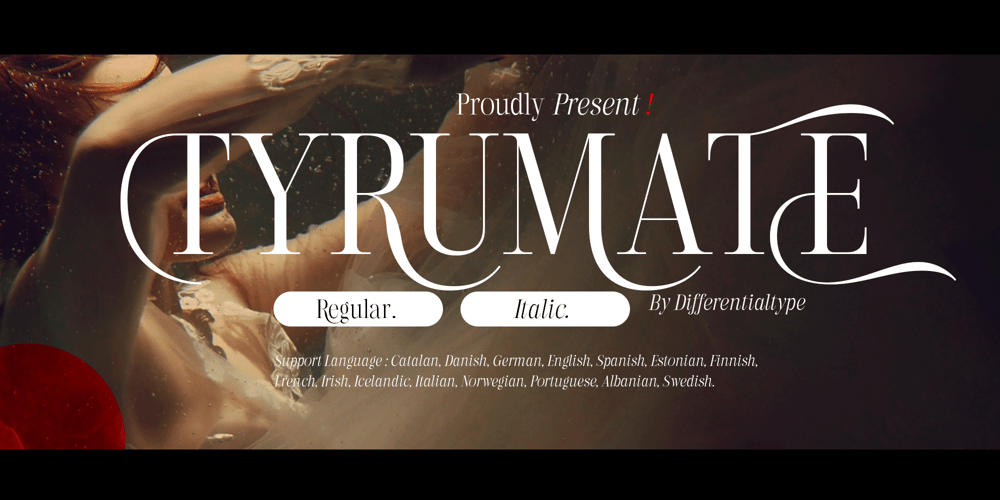
Tyrumate Font Family was designed by Sidik Sidik and published by Differentialtype. Tyrumate contains 2 styles and family package options. Tyrumate is an elegant serif font with a vintage touch and classic. Comes in two styles, regular and italic. Its clean lines and meticulous attention to detail embody the essence of classic typography, making it a chic serif font. Tyrumate is suitable for template design, brochures, videos, advertising branding, logos, invitations, layout designs, elegant crafts, beauty designs, and much more. It will add a splash of luxury to any design project you want to create!